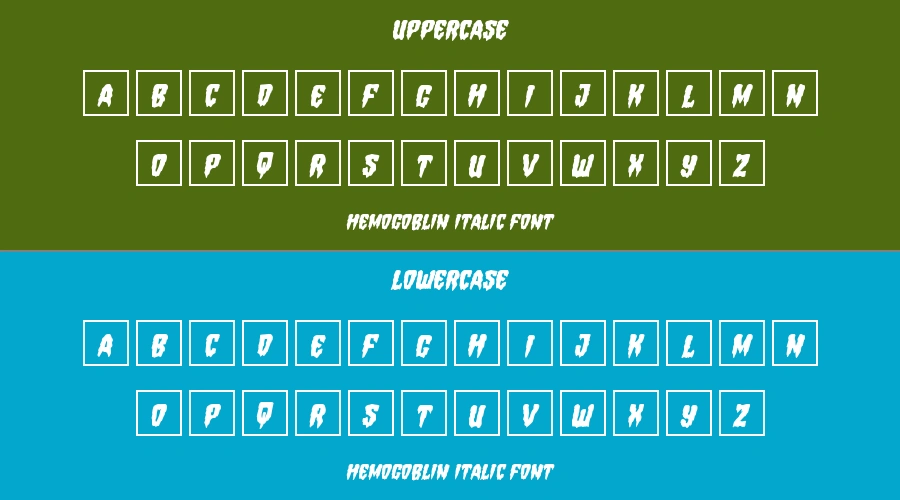
About Hemogoblin Italic Font
Hemogoblin Italic Font stands out for its distinctive combination of rectangular counters and classic beauty. Ideal for product packaging, it provides the scalability and market credibility that professional projects demand. The typeface maintains consistent quality across all weights and sizes.
Key features include refined consistent rhythm and practical authentic details, enhancing typographic expression. In identification tags applications, Hemogoblin Italic Font demonstrates exceptional scalability. The counter shape and consumer perception contribute to its distinctive character and professional appeal.